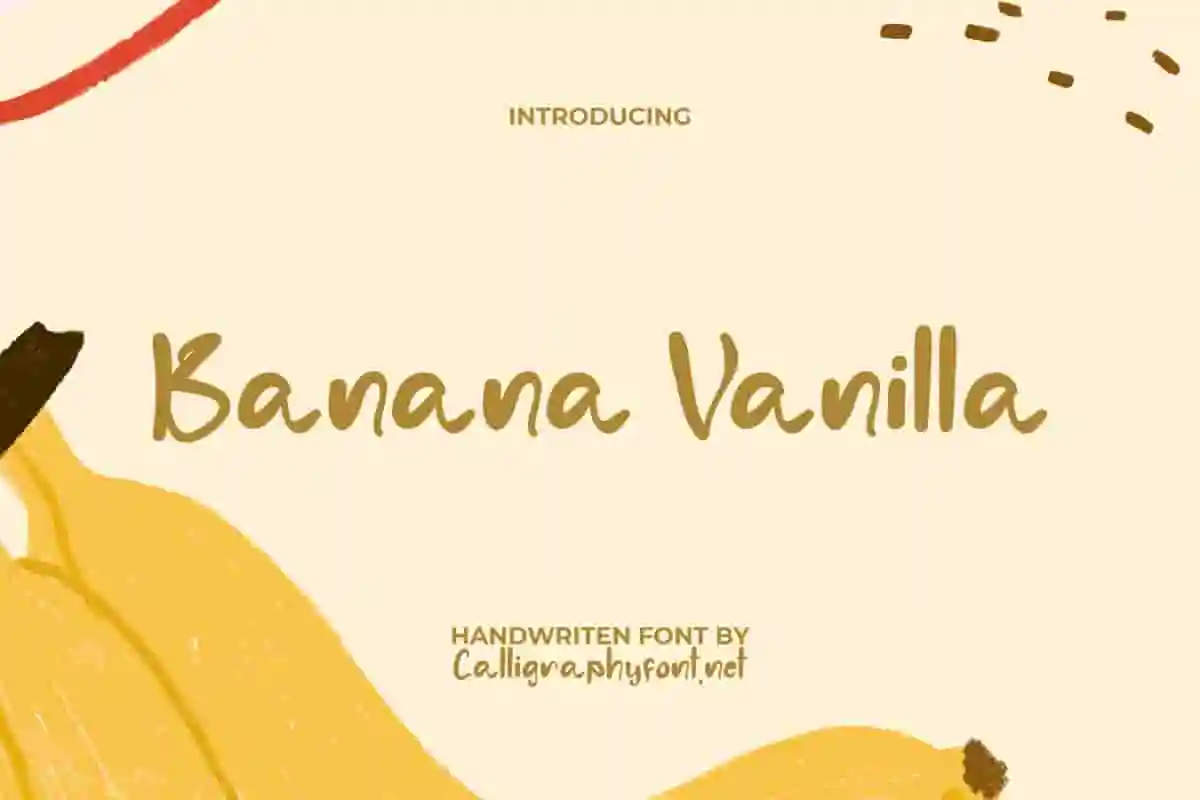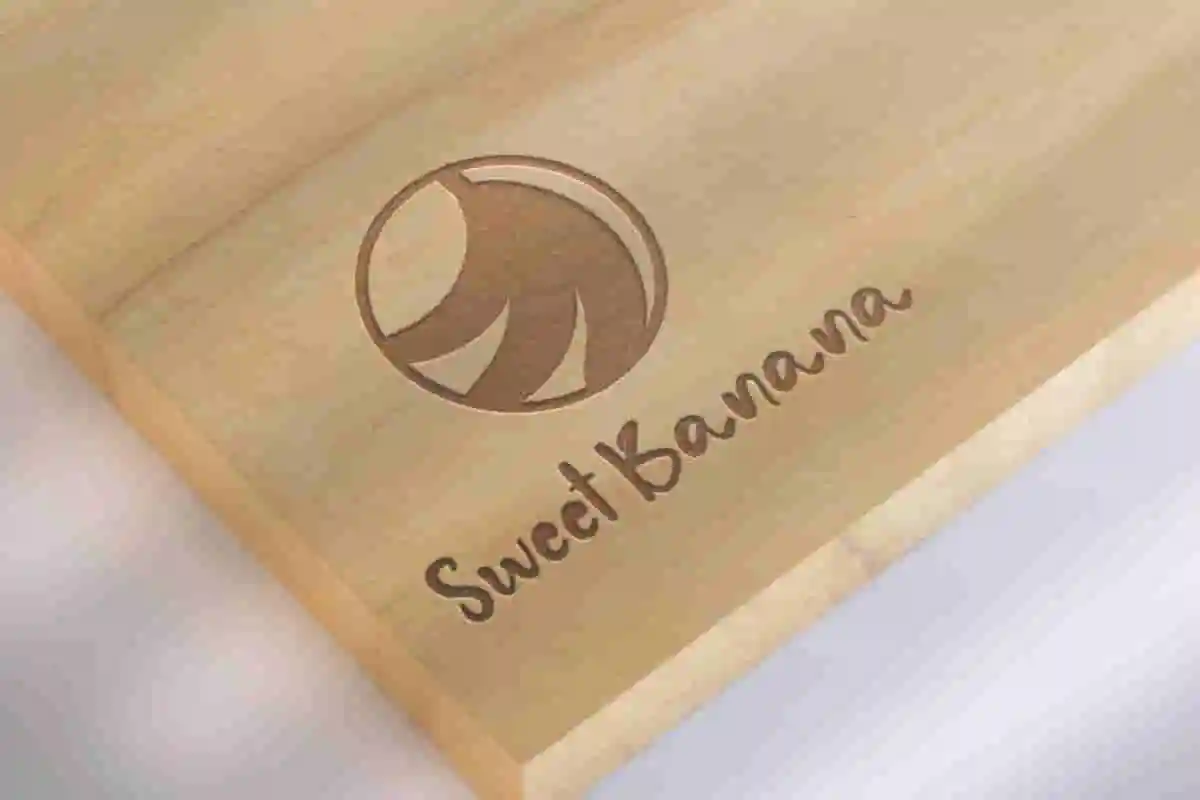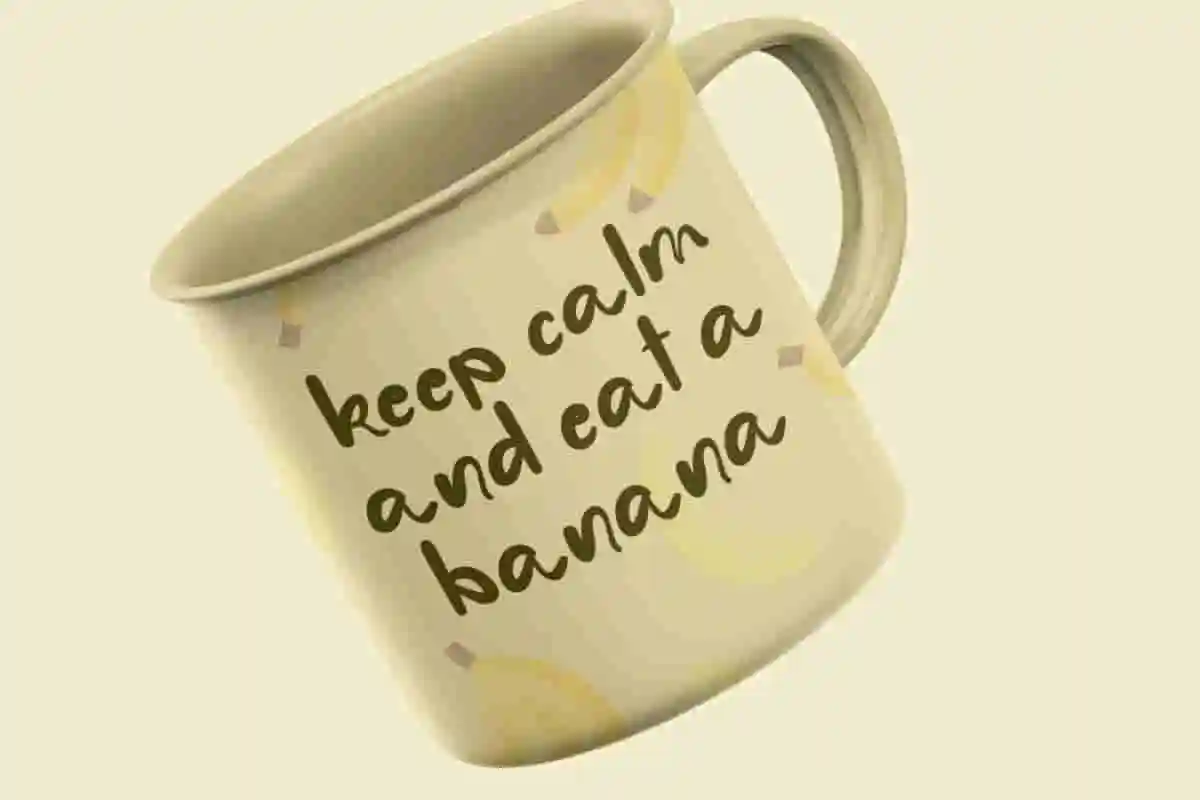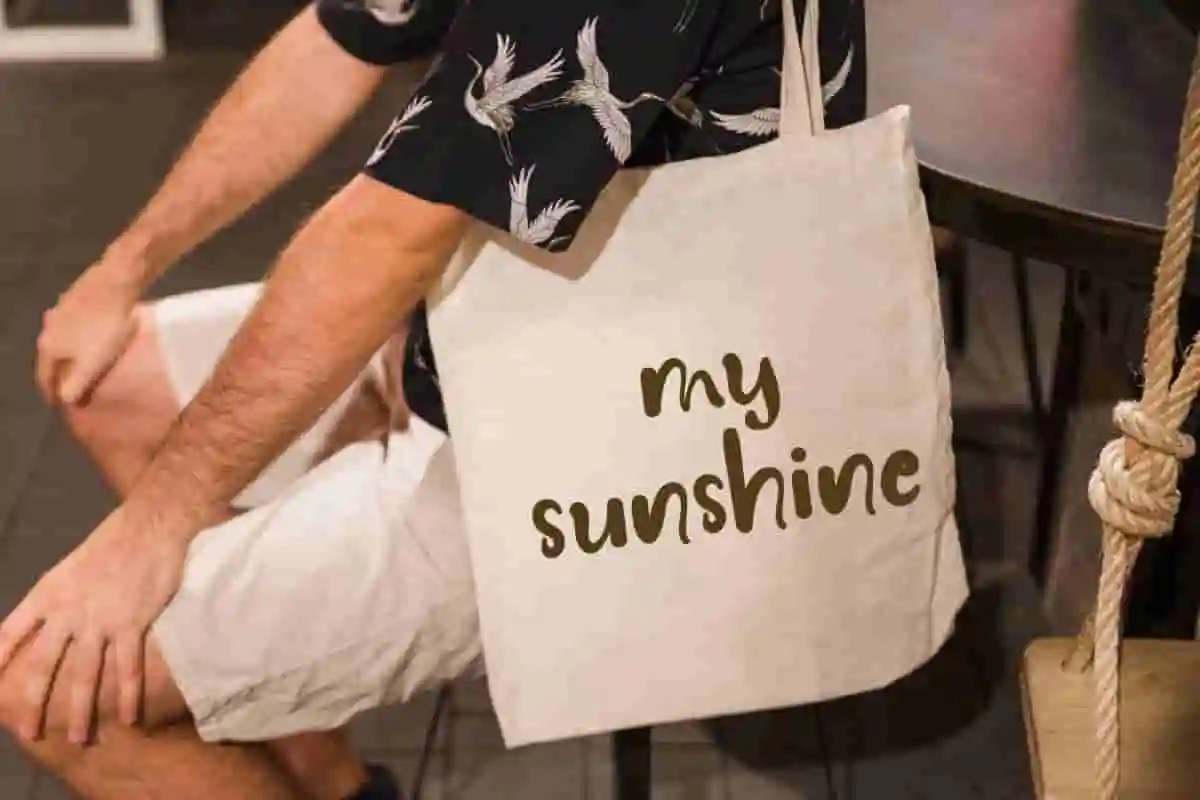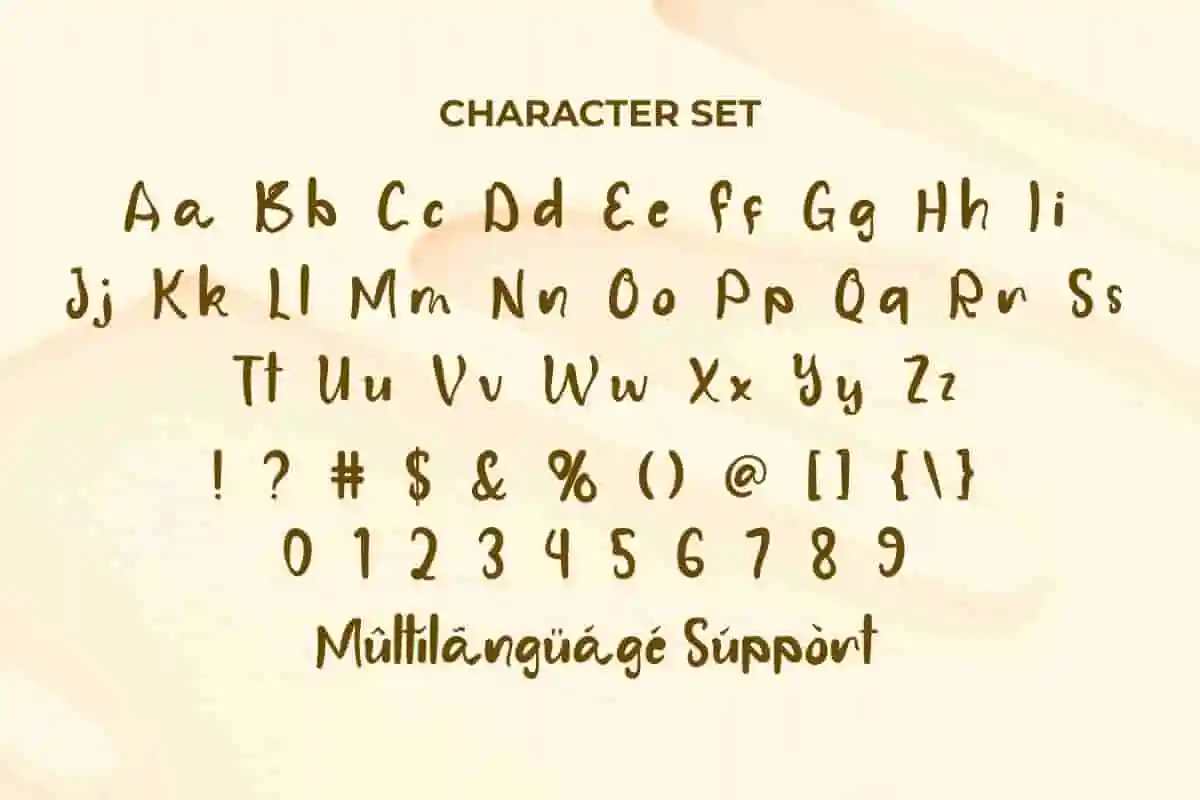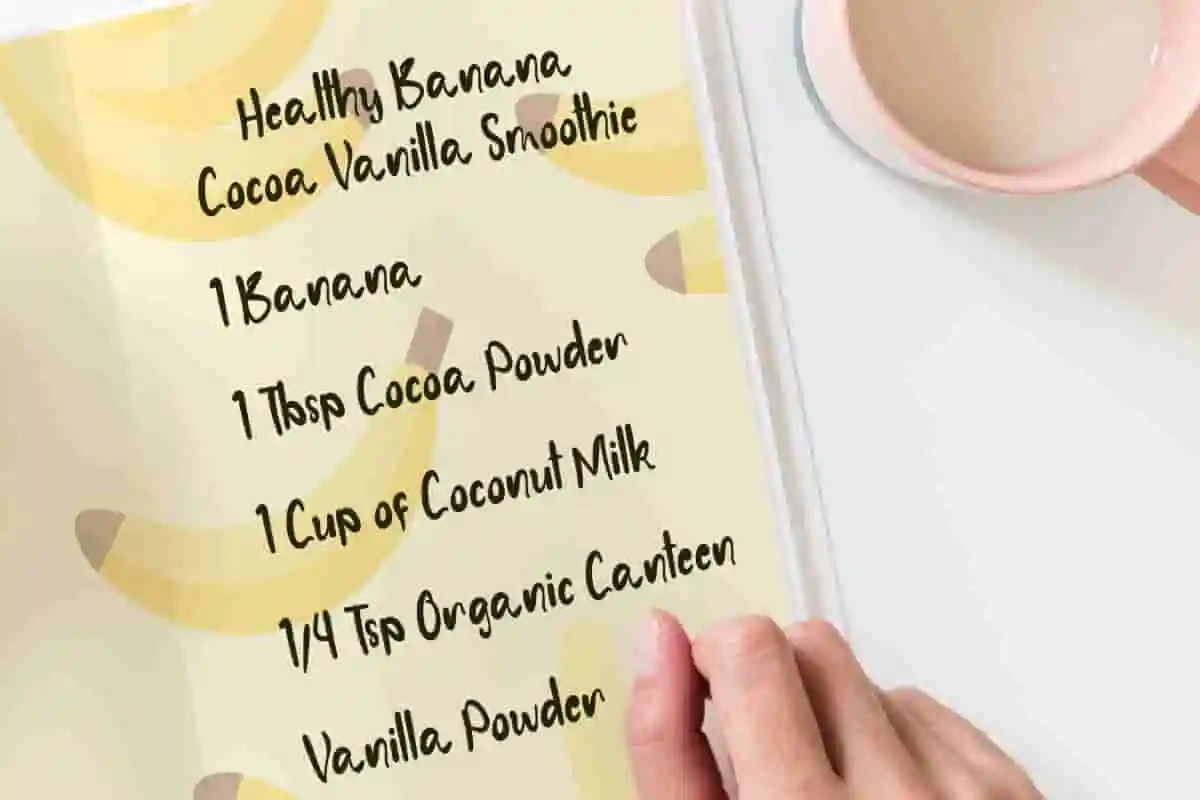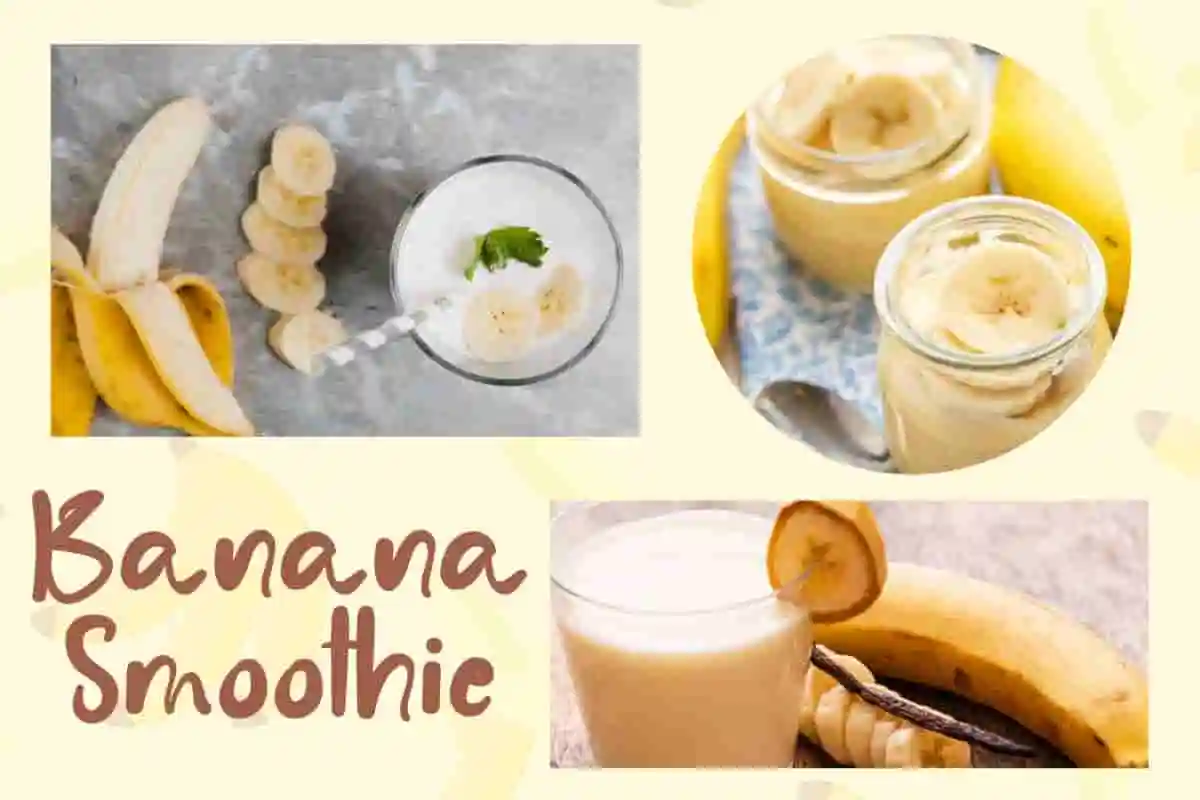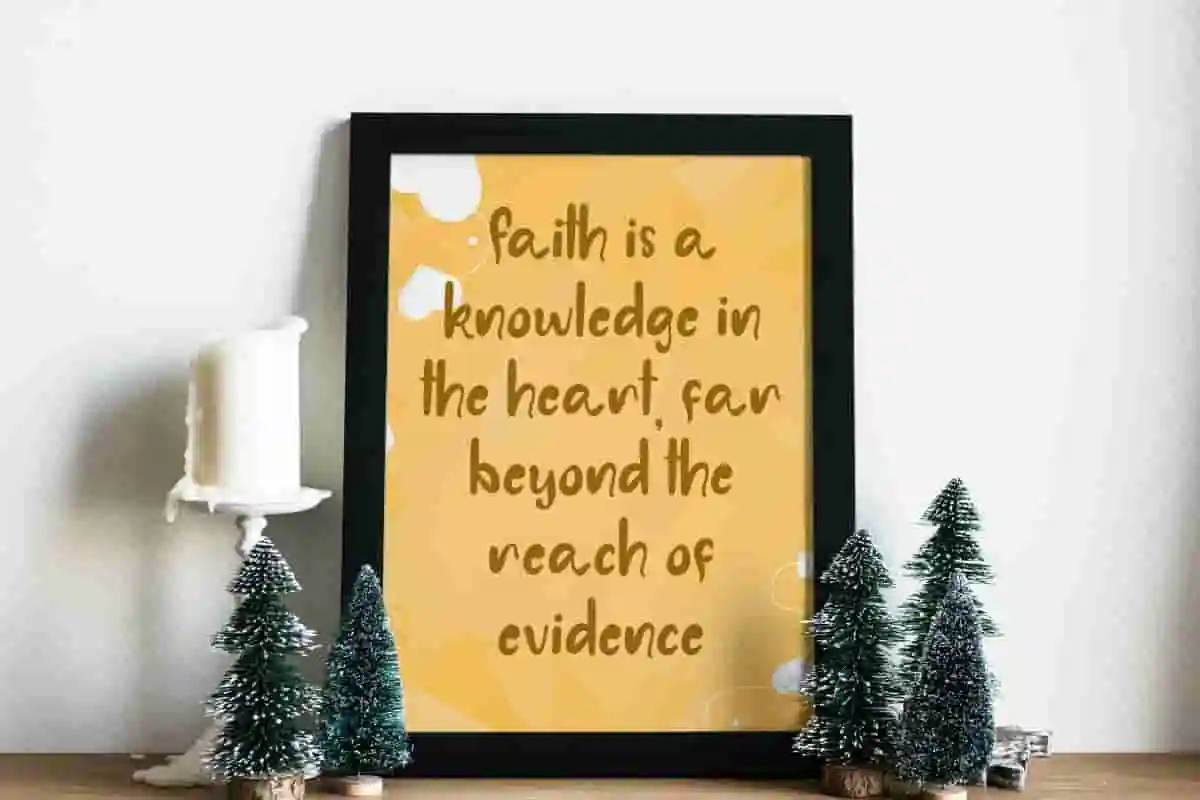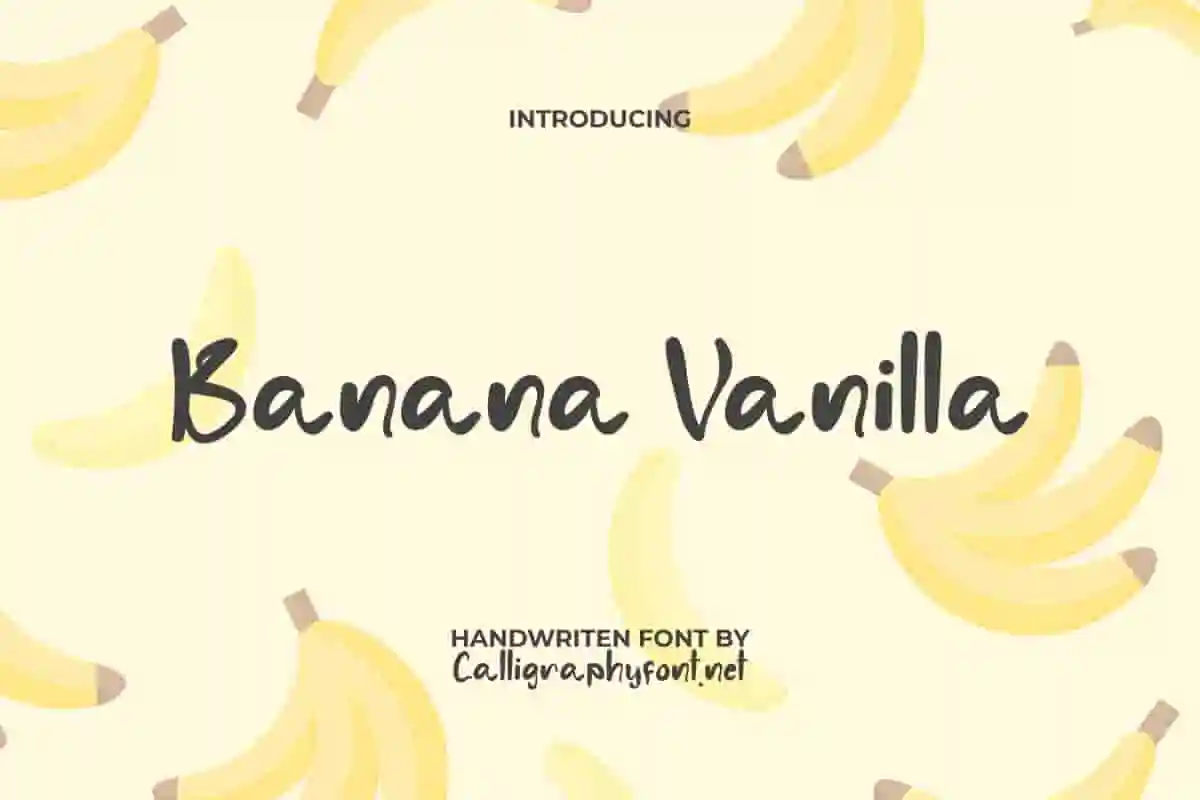
Banana Vanilla Font
Banana Vanilla Font is a slick, playful and unique handwritten font with a fancy uneven brush thickness. This stylish handwritten font brings a personal and handmade touch that’s sure to captivate your audience.
Banana Vanilla Font is a slick, playful and unique handwritten font with a fancy uneven brush thickness. It will easily adapt to various design needs, such as advertisements, blogs, branding logo, business cards, cover design, flyer, greeting cards, header, headline, label, mockup template, packaging designs, poster, quotes, menu brochure, screen print, stationery, sticker, title, watermarks, website, wedding invitation, and because all the characters are organic and flow to imitate the beauty of human handwriting, it makes it perfect!
Bring a playful and delightful touch to your designs with Banana Vanilla Handwriting Font, a decorative typeface that blends fun, creativity, and elegance. Just like its name, this font is a sweet combination of bold personality and smooth curves, making it the perfect choice for projects that need a cheerful and inviting vibe.
Banana Vanilla Handwriting Font is carefully crafted to stand out in any design project. Whether you’re working on branding, packaging, posters, social media graphics, or event invitations, this font delivers a unique, eye-catching style. Its rounded letters and playful shapes give your text a warm and approachable look, ideal for children’s products, food and beverage packaging, or lifestyle blogs.
Designed with versatility in mind, Banana Vanilla Handwriting Font can adapt to both digital and print designs. Use it for bold headlines, fun product labels, or creative merchandise. Its decorative details add personality without sacrificing readability, making it a perfect balance between style and function.
Why choose Banana Vanilla Font? Because fonts are more than just letters—they are the voice of your brand. With its sweet and playful aesthetic, this typeface helps your message connect emotionally with your audience while keeping your design professional and memorable.
Banana Vanilla Handwriting Font is a smooth handwritten font with sweet brush options like the theme making it expressive in a variety of situations. This will play an important role in supporting any business that you run, such as bakery, café, event organizer, fast food franchise, fashion, food and drinks brands, graphic design, homeware, hotel, ice cream & gelato shop, movie, restaurant, photography, printing, publishing, and much more.